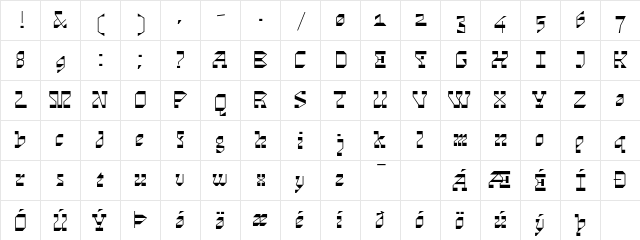
Cosmos Skrift Regular
| Foundry | GnaxType |
| Designer | Gabrҥl Markan |
Design Context for Cosmos Skrift Typeface
Cosmos Skrift is a composed and adaptable typeface that performs quietly and consistently across a wide range of design contexts.